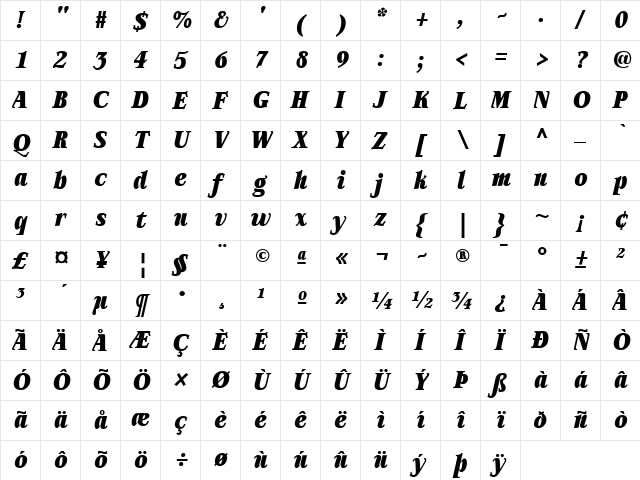
AIAlign Italic Font Preview
AIAlign Italic
AIAlign Italic Font Details
Design Context for AIAlign Typeface
AIAlign offers clean, dependable letterforms without strong stylistic allegiance, making it a practical choice for designers who need flexibility. The dynamic lean of this cut emphasises speed and emphasis in any layout.
Pro Tip: Use AIAlign for emphasis, pull quotes, and subheadings where its slanted energy can add rhythm to the layout.